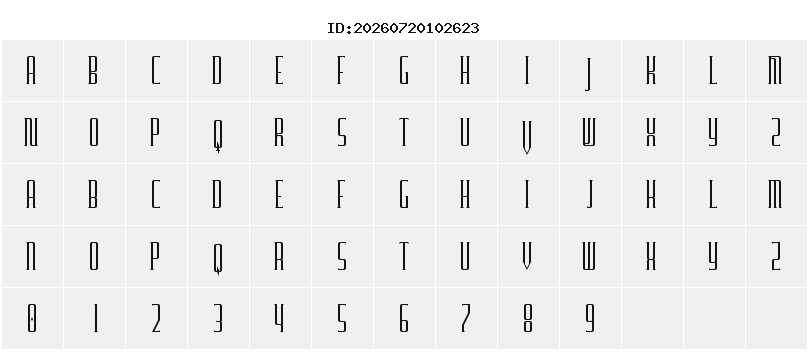
Furgatorio Titling Preview
• Font Name: Furgatorio Titling
• Full Font Name: Furgatorio Titling Regular
• Designer: Aaron Amar
• Description: ‚ÄúFurgatorio Titling‚Äù was built with FontStruct ‚ÄúFurgatorio Titling‚Äù is based on ‚ÄúFurgatorio‚Äù by ‚ÄúAaron Amar‚Äù (http://fontstruct.com/fontstructors/aaronamar)
About Furgatorio Titling.ttf
Furgatorio Titling.ttf is a modern, elegant sans-serif font designed for ultimate readability and visual harmony. Perfect for branding, headlines, web design, and print materials.